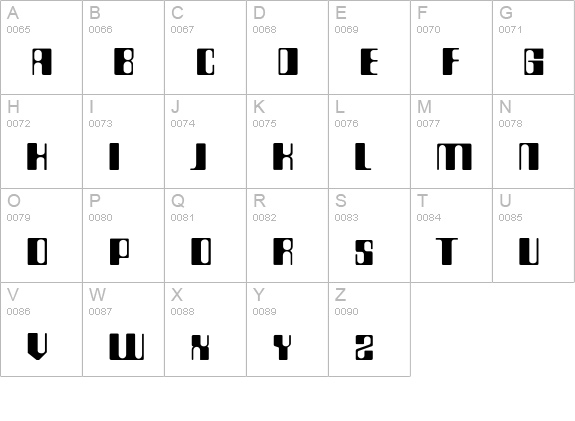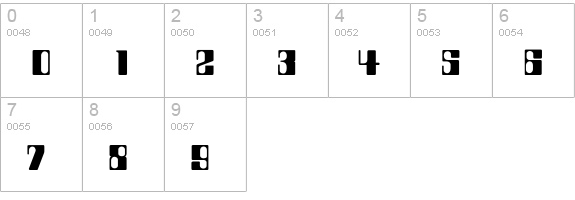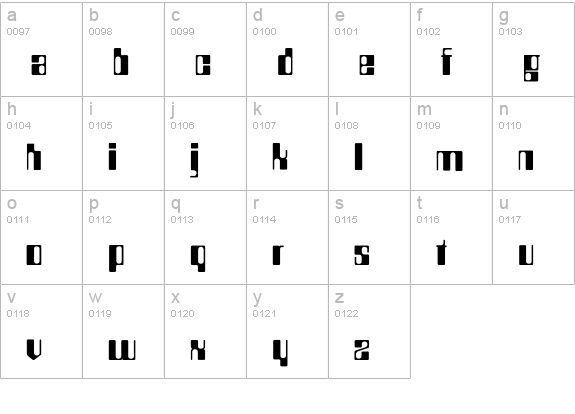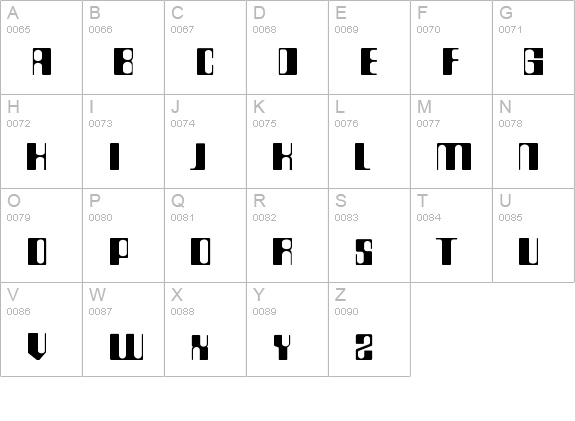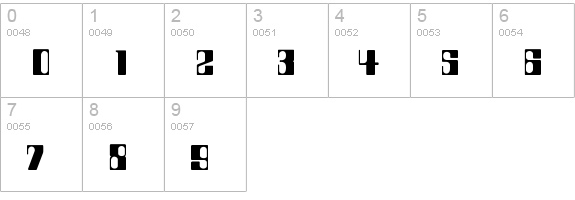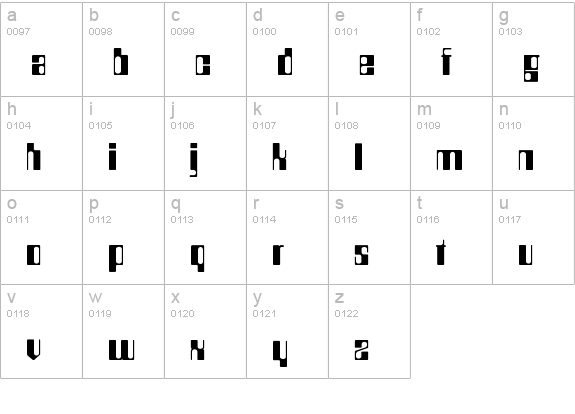
Compstyle Font Details
Compstyle font is a modern and stylish typeface that exudes sophistication and elegance. With its clean lines and balanced proportions, this font is perfect for a wide range of design projects, from branding to editorial design. The sleek and contemporary look of Compstyle font will add a touch of class to any project. The best part about Compstyle font is that it is completely free to download at FontsMarket.com. This means you can easily access this beautiful font and use it in your projects without any cost. Whether you are a professional designer or a hobbyist looking to elevate your creations, Compstyle font is a versatile and high-quality option that will surely impress. Don't miss out on the opportunity to enhance your designs with the elegance of Compstyle font. Download it for free today at FontsMarket.com and start creating stunning visuals that stand out from the crowd.